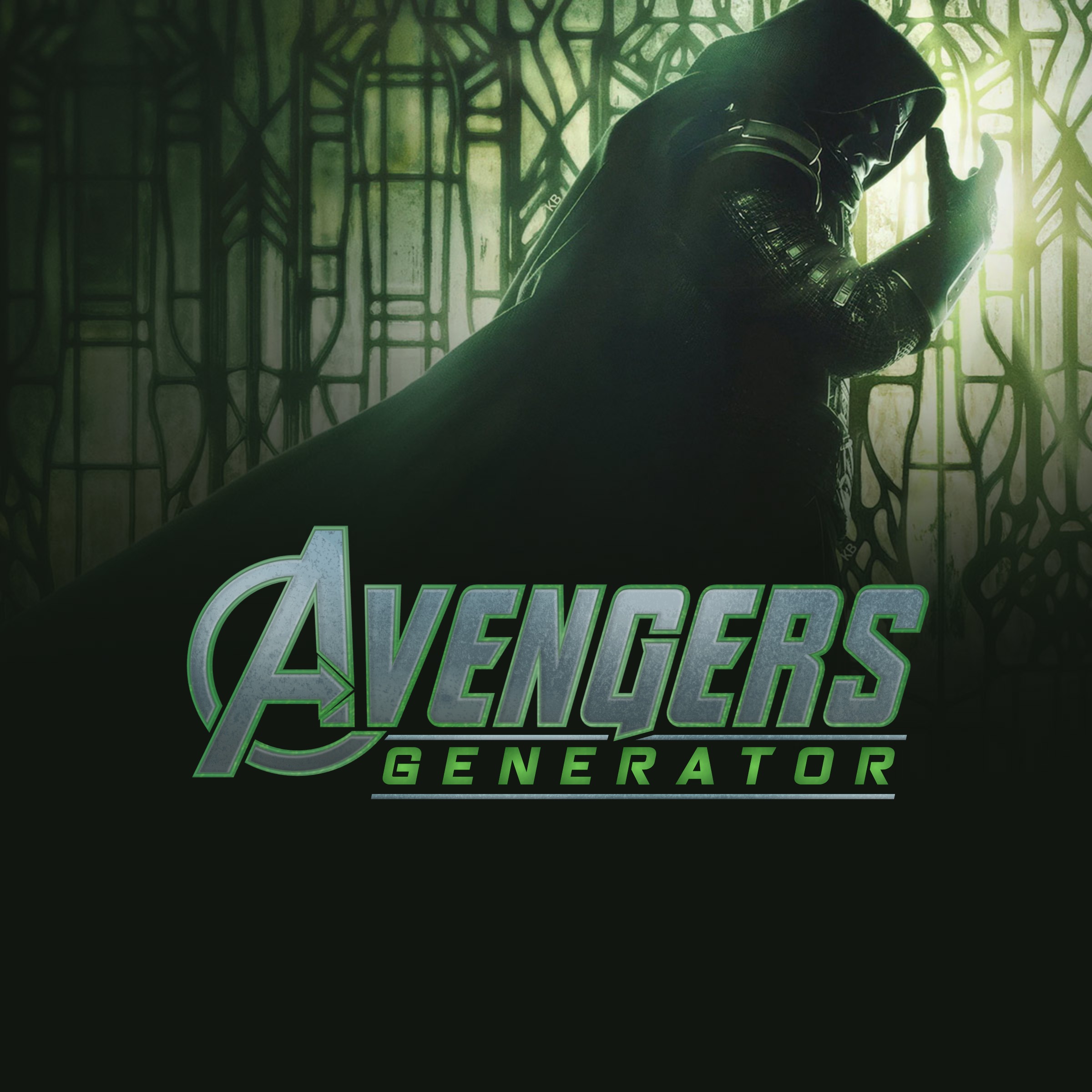
Enter the Pixelframe Multiverse with the Avengers: Doomsday Logo & Font Generator!
Turn any text into the chrome-and-green title treatment from Avengers: Doomsday. Enter a main title and an optional subtitle below, choose a background, and this generator builds the full layered logo, complete with custom fonts, metallic lettering, outlines, divider lines – all in your browser and instantly ready to download as an image.
Marvel has spent decades building toward moments where the entire roster shows up on screen at once, and Avengers: Doomsday is shaping up to be the largest of those moments yet. Three separate hero teams, a villain played by the actor most associated with the MCU's original hero, and a title treatment rendered in cold chrome with a flash of green running through it — the kind of logo that looks like it was forged rather than typeset.
This generator recreates that treatment using two custom fonts and more than a dozen individual rendering passes composited together in the browser. Before getting into the history of the Avengers logo and what's known about Doomsday itself, here is a breakdown of exactly how that rendering works — each visual effect shown in isolation, then stacked together step by step.
How the Avengers logo generator works: a layer-by-layer breakdown
This one builds the main title out of seven distinct passes before the subtitle and its divider lines are even added. Each sample below renders live in your browser using the same fonts and drawing code as the generator itself — the demo word is "Avengers."
Layer 1: Two green outline layers
Before any metal ever appears, two separate green strokes are drawn behind everything else — one slightly darker and nudged to the right of the other. Because the front outline is thinner than this pair, a sliver of green peeks out around every letter once the metal is added on top, giving the edge a faint glow with a hint of depth rather than one flat outline color.
Layer 2: Dark metal-edge stroke
A thin, dark stroke is added directly on top of the green underlay. This is the pass that actually defines the crisp edge of the metal letterforms — everything after this point fills inside that boundary.
Layer 3: Metallic gradient fill
The third pass fills the letterforms with a vertical gradient moving from a pale blue-grey highlight at the top through a mid steel tone down to a near-black shadow at the base. This single gradient is what reads as "chrome" before any texture or lighting effect is layered on — the value shift alone suggests a curved, reflective surface.
Layer 4: Surface texture
A tiled texture PNG is clipped to the glyph shapes and composited over the gradient at partial opacity. It breaks up the otherwise flat metal fill with subtle variation, the same way a brushed or worn metal surface catches light unevenly rather than reflecting as one clean plane.
Layer 5: Inner shadows
Two dark inner-shadow passes are drawn next, both nudged toward the right interior edge of each letter at a small offset and blur. The technique draws a blurred stroke on an isolated offscreen canvas and clips it to the letter shape — only the blurred shadow itself is ever visible, never the stroke that produced it. The result reads as the interior walls of each letter falling into shade, as though the metal has real thickness.
Layer 6: White highlight
A final inner-shadow pass reverses both the color and the direction — white, pushed toward the upper-left interior edge instead. It is the most subtle pass in the stack, but it is what separates letters that look genuinely curved from letters that just look shaded. This completes the main title treatment.
Layer 7: Subtitle and divider lines
Underneath the main title, a smaller subtitle line is rendered one letter at a time, so that each individual character gets its own green radial gradient rather than one gradient stretched across the whole word. Two thin metal bars — sharing the same gradient and texture as the main title — sit above and below it, echoing the rule lines used on the actual film's title card.
Seven passes on the main title alone — two outline layers, an edge stroke, a metallic gradient, a texture clip, and two directions of inner shadow — plus a separately rendered subtitle with its own per-letter gradients and matching divider bars. Remove any single one and the illusion of forged metal starts to fall apart; the outline layers stop giving it edge glow, the inner shadows stop giving it thickness, and the texture stops giving it surface.
A chrome legacy: the Avengers logo across the MCU
The first Avengers film in 2012 kept its title card comparatively restrained — bold, evenly weighted capital letters in a clean metallic grey, designed to read as a team-up event rather than any single hero's movie. It was less about ornamentation and more about scale: the word itself, filling the frame.
Age of Ultron leaned harder into the metal motif in 2015, giving the lettering a cracked, damaged quality befitting a story about a rogue AI built from salvaged Stark technology. By the time Infinity War and Endgame arrived in 2018 and 2019, the logos had shifted toward heavier, more ornate treatments tied to Thanos and the stakes of the Infinity Stones — gold accents, a weightier sense of finality.
Doomsday's title treatment returns to a colder, more industrial palette: brushed chrome letterforms with a green undertone running along the edges. That green is not incidental. It is the signature color of Doctor Doom's cloak and armor in the comics, and threading it through the logo itself is a quiet way of putting the film's villain into the wordmark before a single frame has played.
Avengers: Doomsday — what's arriving December 18, 2026
Avengers: Doomsday is scheduled for release on December 18, 2026, directed once again by Joe and Anthony Russo, who previously helmed Infinity War and Endgame. The film's biggest reveal came at San Diego Comic-Con, when Robert Downey Jr. — whose run as Tony Stark ended with his character's death in Endgame — was confirmed to be returning to the franchise, this time playing Victor Von Doom, the villain known as Doctor Doom.
The premise brings together heroes from three distinct corners of the Marvel multiverse on a collision course toward Doom. That includes the core MCU Avengers, the Fantastic Four cast introduced in The Fantastic Four: First Steps — Pedro Pascal as Reed Richards, Vanessa Kirby as Sue Storm, Joseph Quinn as Johnny Storm, and Ebon Moss-Bachrach as Ben Grimm — alongside members of the Thunderbolts team. It marks the first time this scale of crossover has been attempted within a single MCU film, setting up a direct sequel in Avengers: Secret Wars the following year.
One release-calendar coincidence has become a running joke among fans: Doomsday shares its December 18 opening weekend with Dune: Part Three, a pairing quickly nicknamed "Dunesday." Both films are expected to run in the two-and-a-half to three-hour range, making for an ambitious double feature for anyone attempting both on the same day.
Related generators worth exploring
Doomsday's chrome-and-green treatment sits within a broader run of Marvel-adjacent generators on this site, each built around a different visual language from across the comics and their adaptations.
The Marvel logo generator recreates the studio's own bold, condensed wordmark — the red-and-white banner that opens every MCU release, including the one Doomsday itself will carry into theaters.
For a different corner of the Marvel universe entirely, the Wolverine generator is built around the slashed, weathered title treatment from the character's recent video game incarnation — a rougher, more feral counterpart to Doomsday's polished chrome.
The Spider-Man generator goes back to the character's animated-series era, with a title card built on bold primary color and dynamic angled type rather than metallic shading.
And for the other half of December 18's box office collision, the Dune logo generator recreates the stark, desert-toned wordmark from Denis Villeneuve's adaptation — worth trying alongside this one, given the two films are opening on exactly the same day.
Using the generator
The main text field accepts any title, automatically capitalizing only the first letter and rendering the rest in lowercase, matching how "Avengers" reads on the actual title card. The subtitle field below it renders each letter with its own individual gradient and sits close beneath the main title, framed by the metal divider bars, with its wrap width automatically kept in line with the main title so the two stay visually paired even as text length changes.